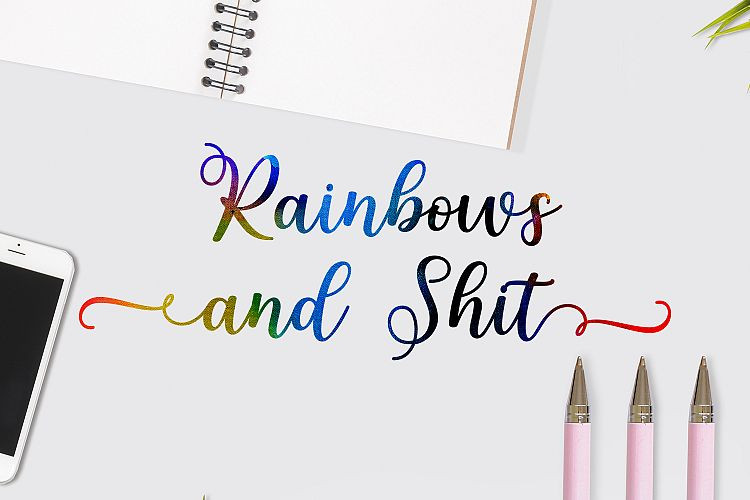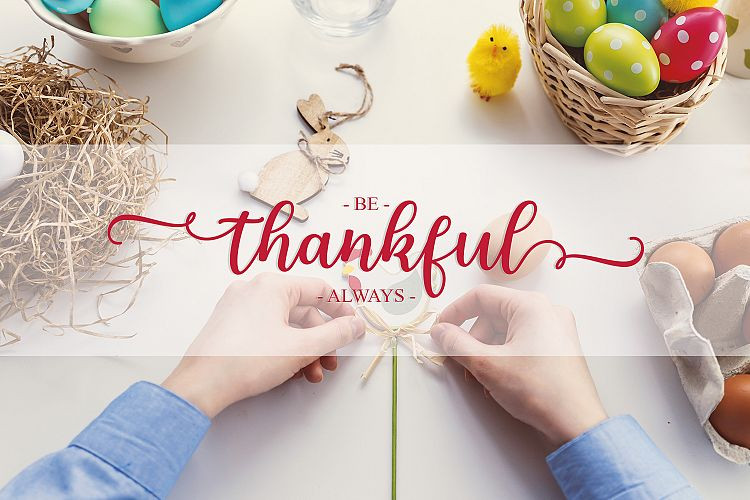
Adiline Calligraphy Font
Hello guys. This is a modern calligraphy font. It is elegance, modernity, and friendly, It’s perfect for all things design! Introducing Adiline Font. It’s designed and shared by Bexxtype. It’s a new fresh & modern script with a handmade calligraphy style, decorative characters and a dancing baseline! So beautiful on invitation like greeting cards, branding materials, business cards, quotes, posters, and more!!